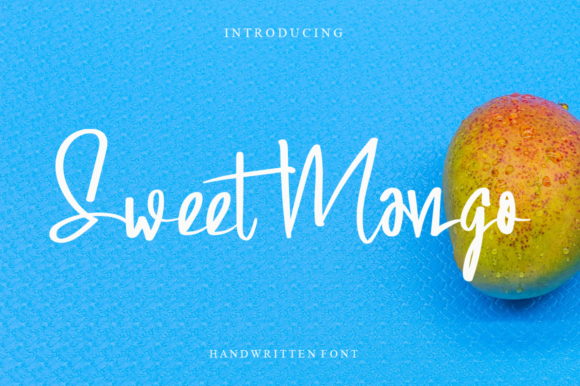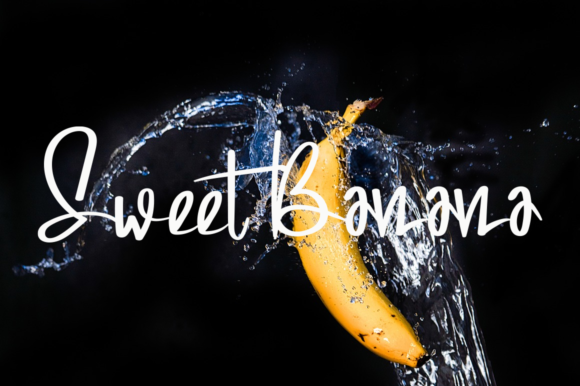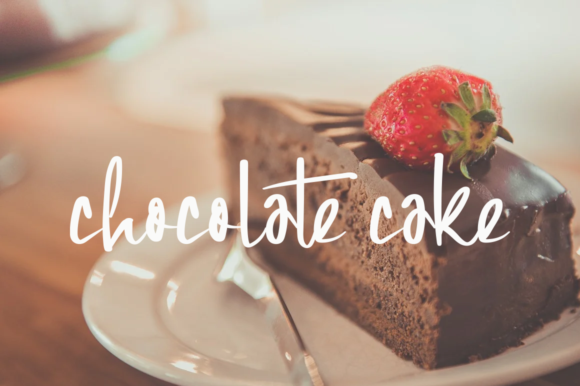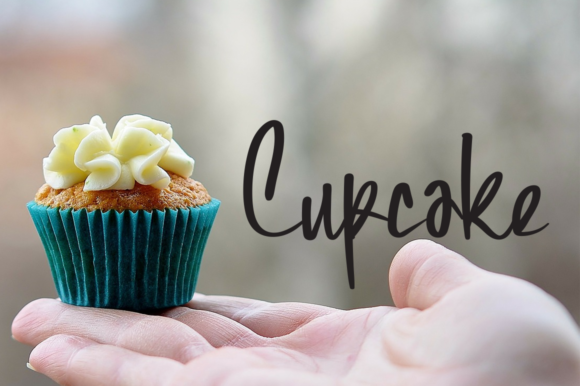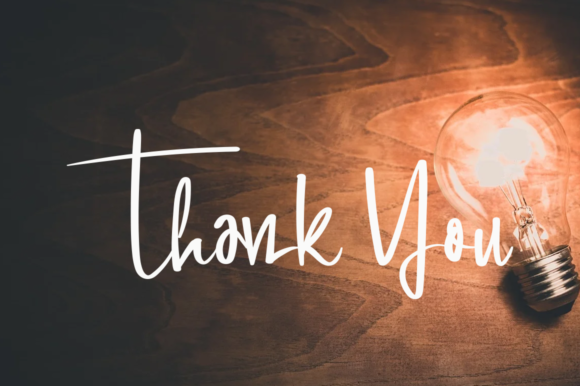
Sweet Mango Font
About Sweet Mango Font
Sweet Mango is a thin, dainty and cursive handwritten font. This gentle font will look gorgeous on a variety of design ideas. It will add a joyful and romantic touch to each of your projects!